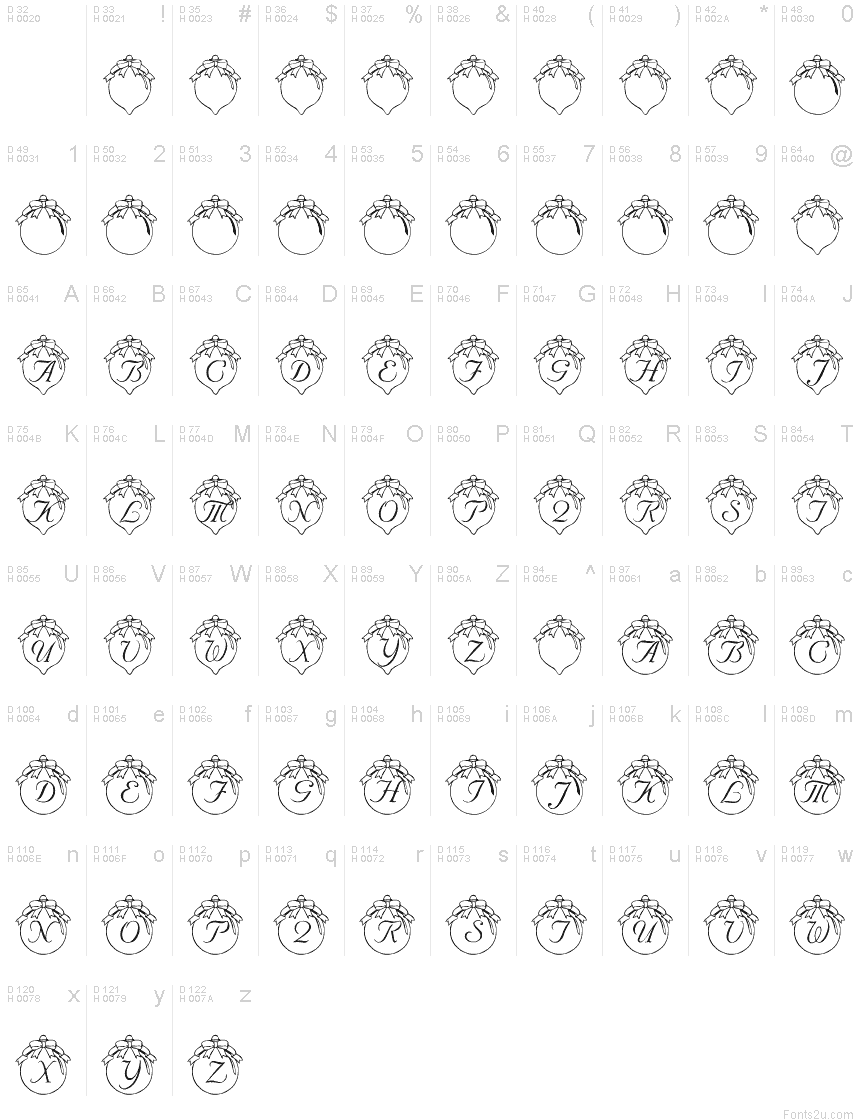
LMS How Lovely Are Thy Branches
LMS How Lovely Are Thy Branches by London Stokes is a free Christmas initial font built around hanging baubles. Flowing calligraphic letters sit inside rounded ornaments topped with ribbon bows and small evergreen sprigs. The linework stays fine and airy.
Families and holiday crafters will recognize its traditional seasonal imagery on gift tags and invitations. The ornament motif gives young readers an immediate link to Christmas. Advent calendars and party signage can use the letters as individual decorations.